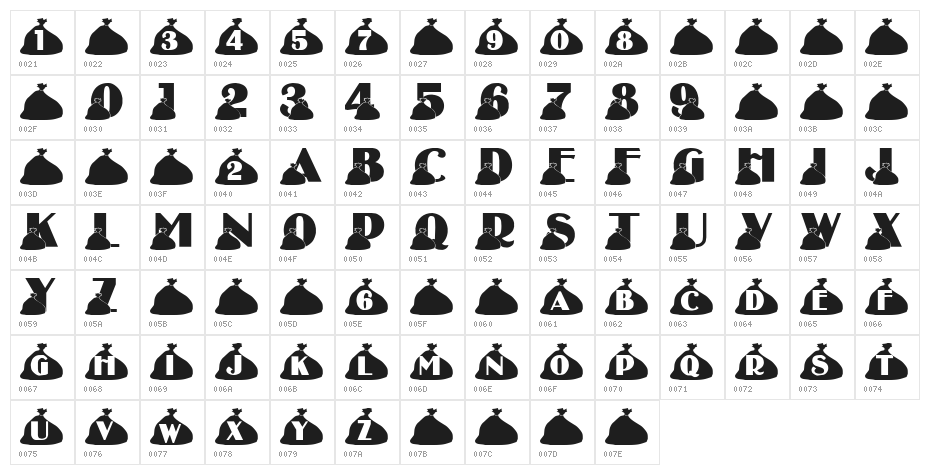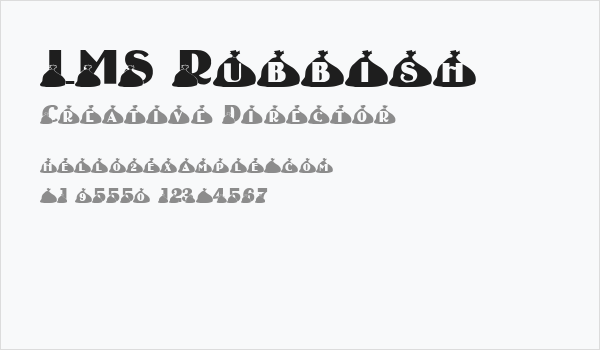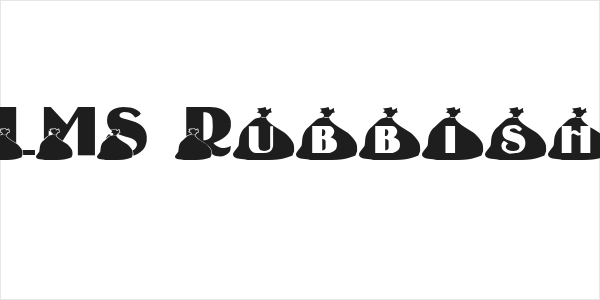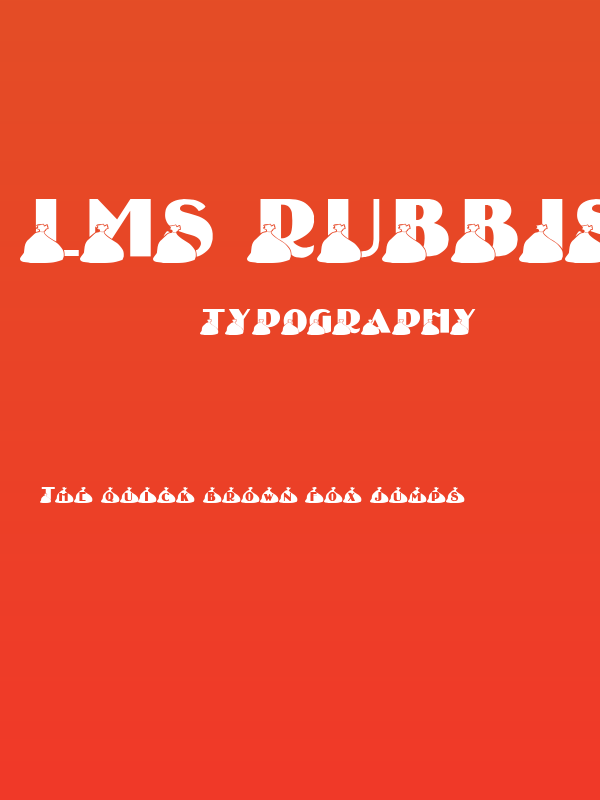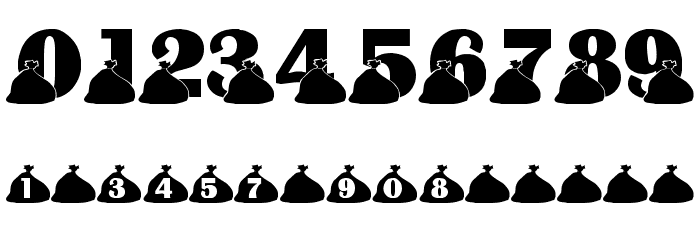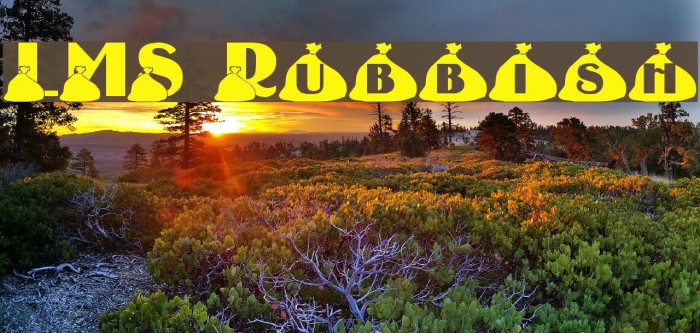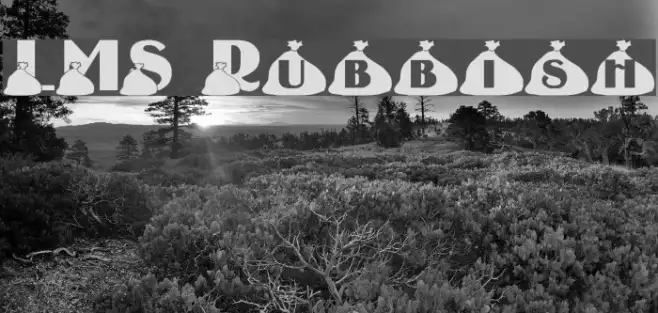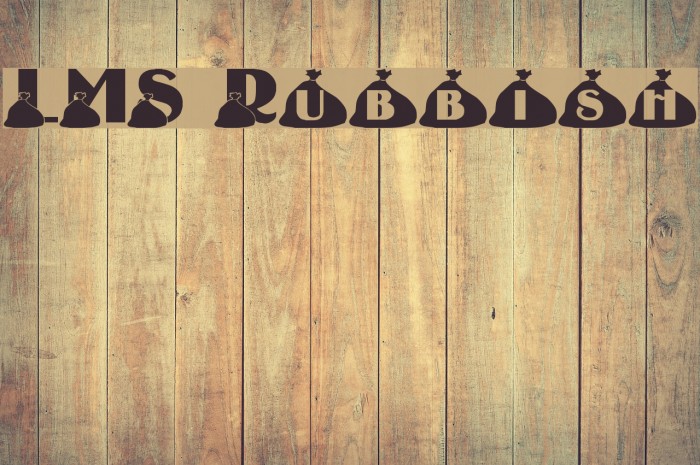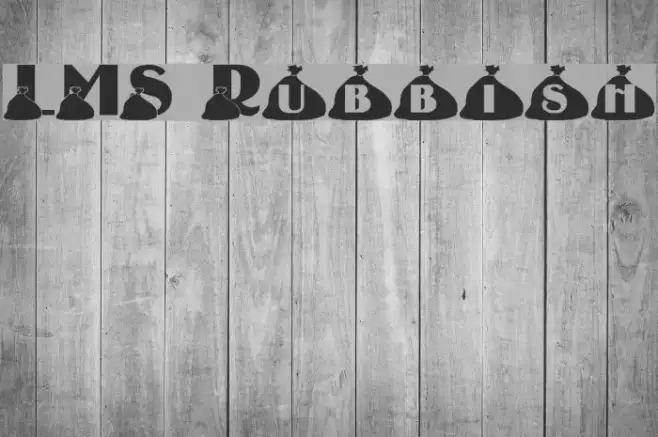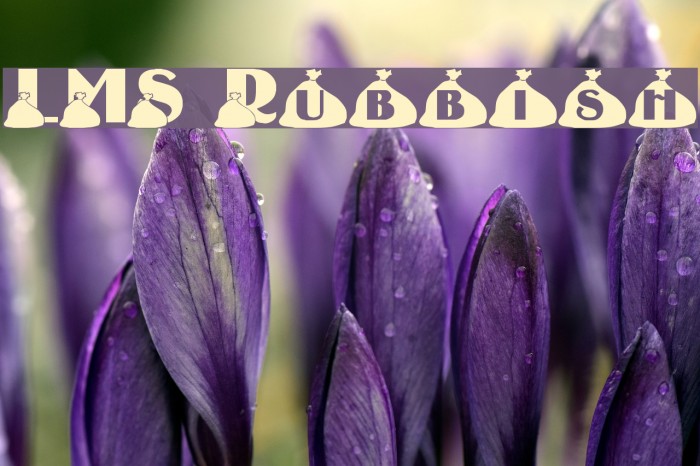
LMS Rubbish Font
LMS Rubbish Description
This unique and playful font features characters embedded within the silhouette of a garbage bag, creating a whimsical and eye-catching design. Each letter and number is cleverly integrated into the shape of a trash bag, making it ideal for projects that require a fun and unconventional look. The bold and solid design ensures high visibility and impact, while the quirky theme adds a touch of humor and creativity. The font is perfect for themed events, environmental campaigns, or any project that aims to capture attention with a distinctive style.
| Proposed Projects | Ideal for themed events, environmental campaigns, children's books, or creative advertising. |